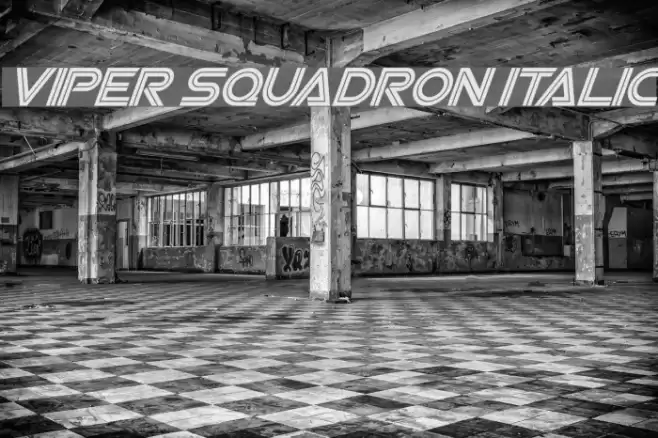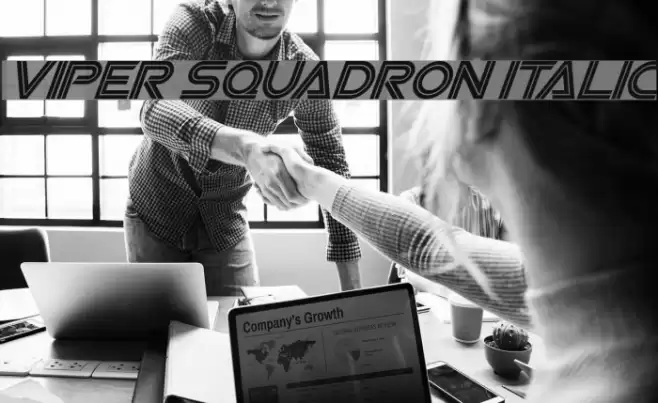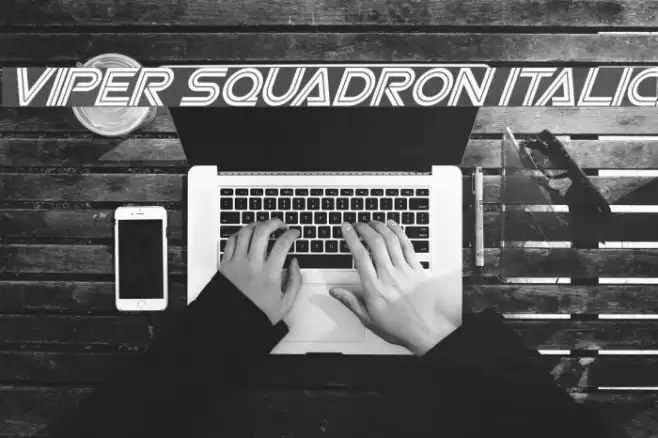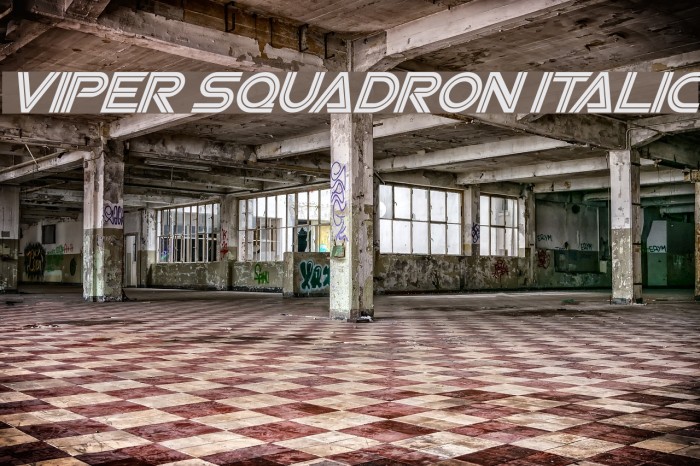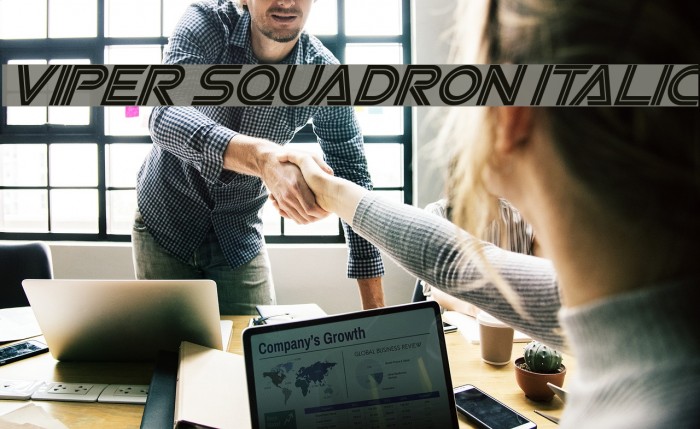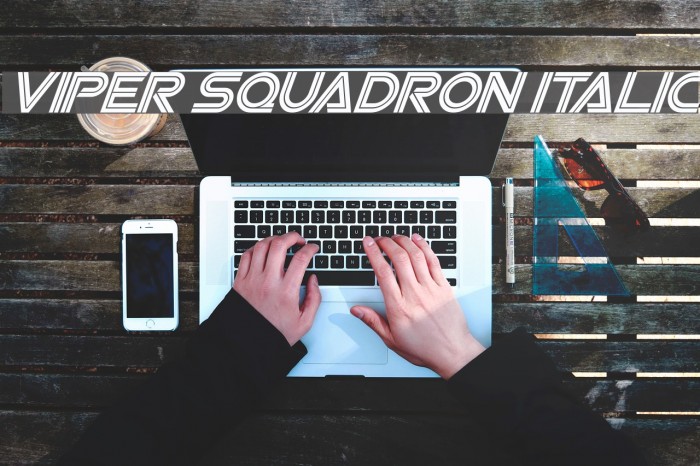
Viper Squadron Italic Font
Viper Squadron Italic Description
This font features a dynamic and futuristic design with a strong emphasis on angular lines and geometric shapes. The characters are italicized, giving a sense of motion and speed, which is further enhanced by the use of parallel lines that create a layered effect. The uppercase letters are bold and striking, making them ideal for attention-grabbing headlines. The overall style is reminiscent of sci-fi and tech themes, with a modern twist that makes it suitable for contemporary designs. The font's unique style is perfect for projects that require a bold and innovative look.
A dynamic, futuristic italic font with bold, angular lines and a layered effect from Futuristic fonts.
- Proposed Projects: Ideal for sci-fi themed posters, tech branding, video game titles, and futuristic event flyers.
- Overall Style: Futuristic, Modern